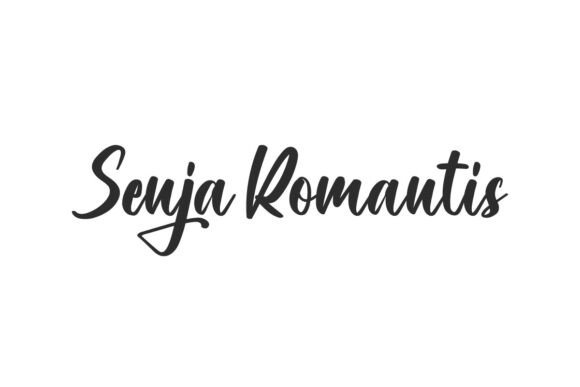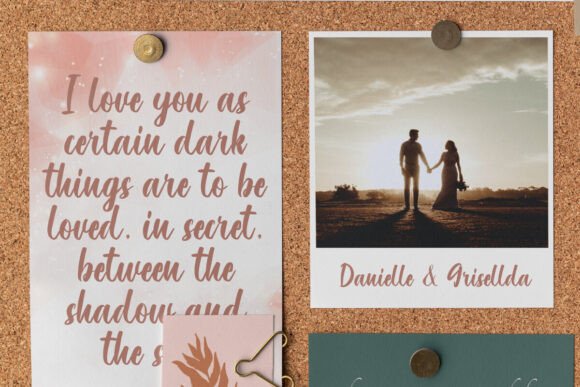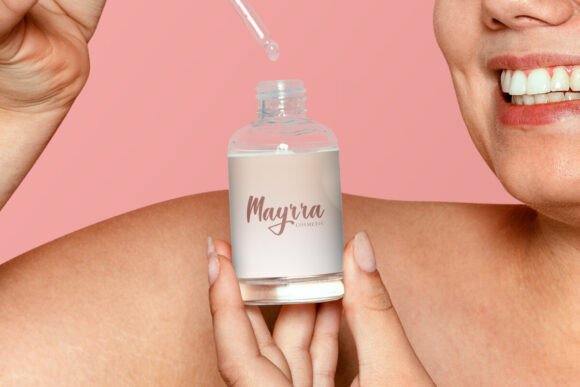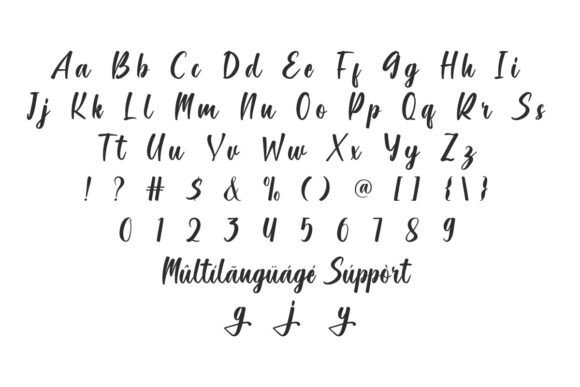
Senja Romantis Font
About the Senja Romantis Font
The Senja Romantis Font offers a perfect balance of form and function for your design needs. Senja Romantis is a romantic charming calligraphy script font with a casual retro look. Carefully crafted typography provides a neat look that will enhance your design, such as billboard, blog, brand logo, brochure, cover, header, invitation, label, poster, product packaging, quote, screen print, stationery, sticker, title, watermark, website, and many more!
Senja Romantis Font Usage Examples
Senja Romantis Font Example